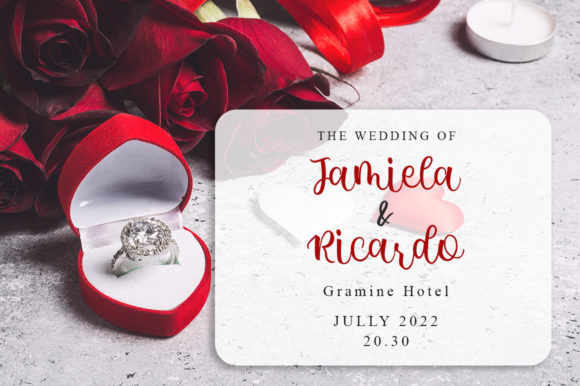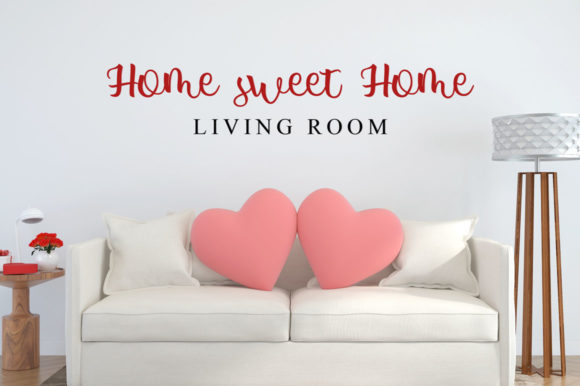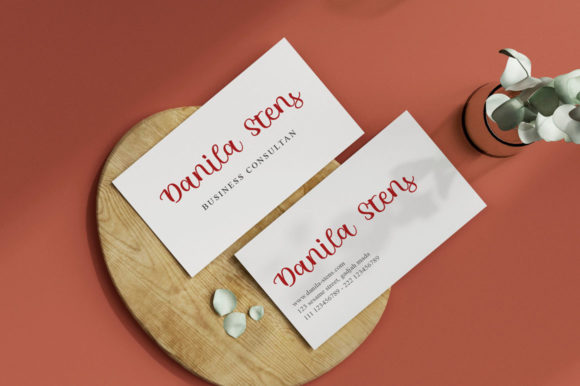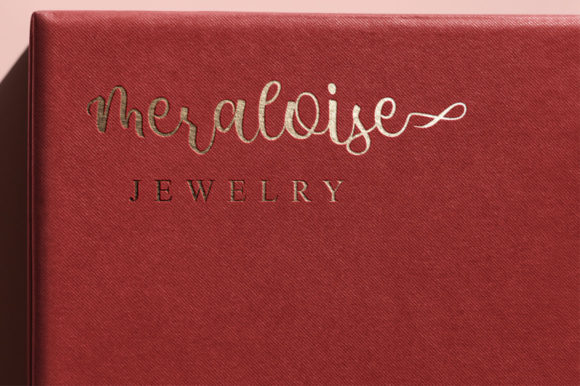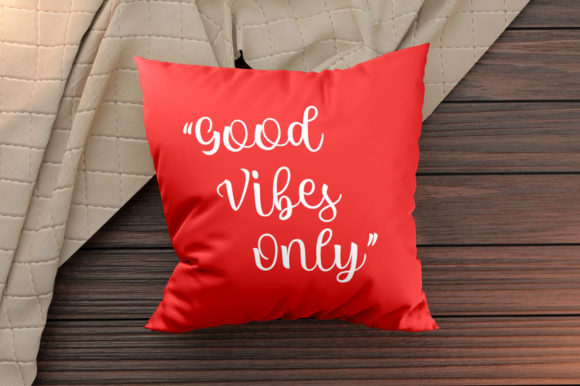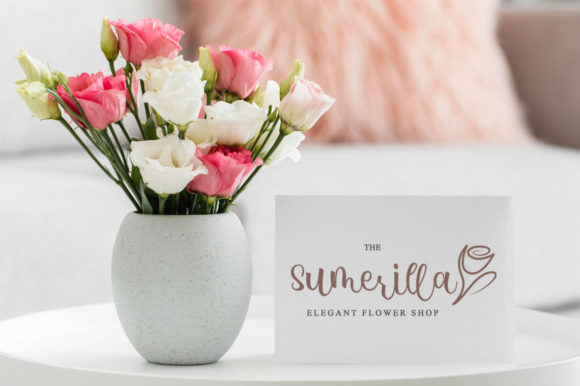
Daylena Font – Free Download
Introduction to Daylena Font
Daylena is a romantic and sweet calligraphy typeface with characters that dance along the baseline.
It will add a luxury spark to any design project that you wish to create Daylena is PUA encoded which means you can access all of the glyphs and swashes with ease.
Key Features of Daylena Font